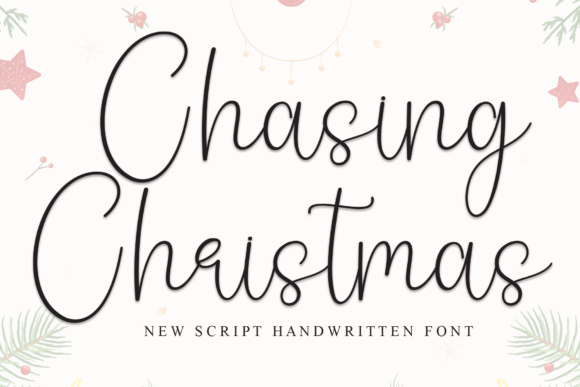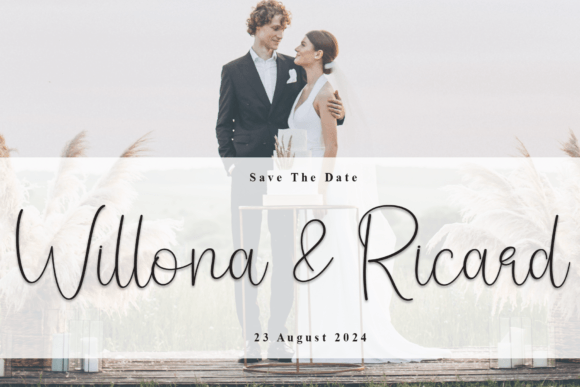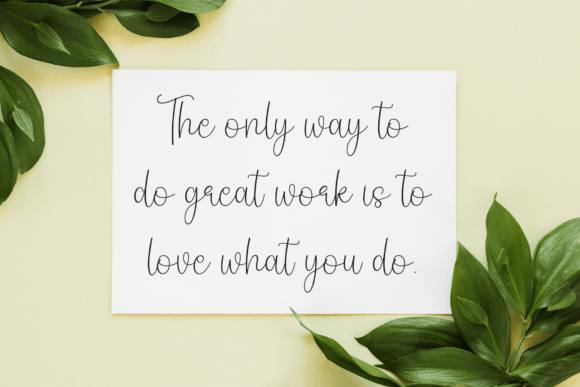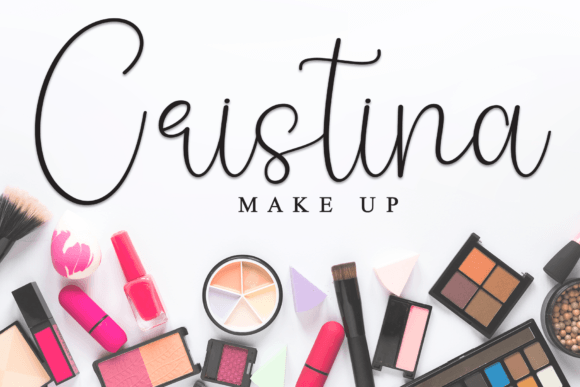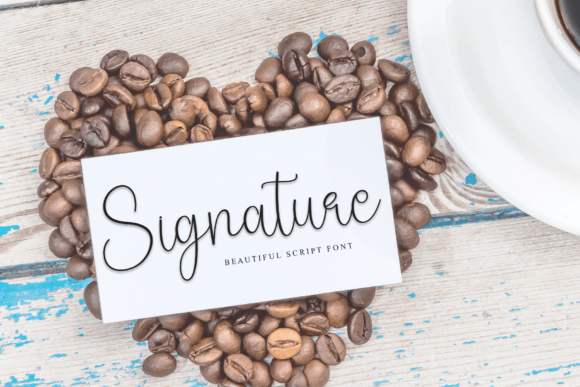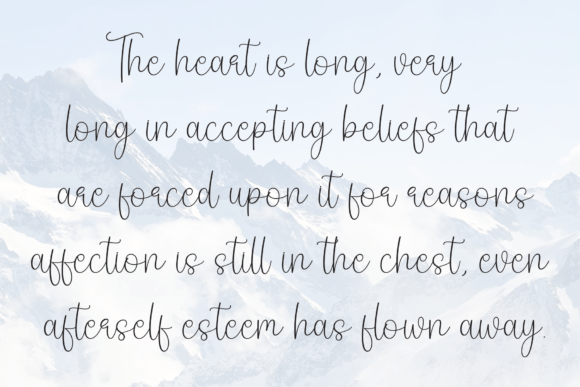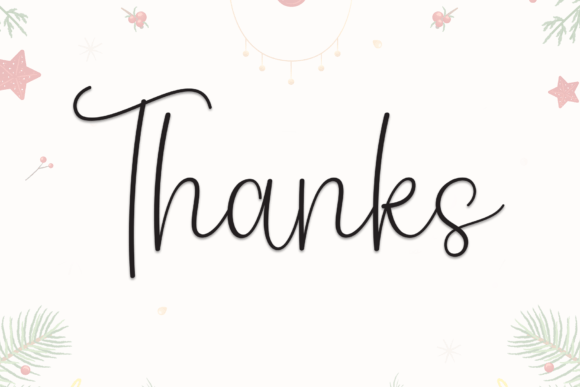
Deck the Halls with Typography: Discover the Magic of Chasing Christmas Font
As a designer, there’s no feeling quite like the rush of inspiration that comes when crafting the perfect holiday design. The twinkling lights, the cozy atmosphere, and the joyous spirit of the season all converge to create a moment of pure creative bliss. It’s in these moments that we yearn for a font that captures the essence of the season – a font that’s as warm and inviting as a crackling fire on a cold winter’s night.
Enter the Chasing Christmas Font, a delightful, handwritten display font that’s sure to bring a smile to your face and a touch of whimsy to your designs. This charming font is perfect for adding a playful and festive flair to your wedding invitations, personalized cards, or any other design project that needs a dash of holiday magic. With its unique, heartwarming style, the Chasing Christmas Font is a valuable addition to any designer’s toolkit.
Key Features of “Chasing Christmas Font”
- Unique Characteristics: Distinctive, hand-drawn style with intricate details and ornaments
Designer Review: Chasing Christmas Font
Overall, I think Chasing Christmas Font is a unique and eye-catching font, perfect for capturing the festive spirit during the holiday season. ✨ The playful, handwritten feel of the font is reminiscent of holiday cards and decorations, making it a great choice for projects that need a touch of whimsy and cheer.
- ✨ The font’s cursive feel is well-executed, with smooth lines and flowing connections between letters.
- ✨ The font’s personality shines through in its imperfections, making it feel more human and less robotic.
- ✨ The font is highly customizable, with a wide range of weights and styles available to suit different design needs.
- ⚠️ The font may not be suitable for formal or professional projects, as its playful feel may come across as too casual or immature.
- ⚠️ Some users may find the font’s imperfections to be distracting or difficult to read, particularly in smaller font sizes.
Overall, I think Chasing Christmas Font is a great choice for designers who want to add a touch of holiday magic to their projects. Just be sure to use it wisely and in contexts where its playful feel will be well-received.
Getting the Most Out of the Chasing Christmas Font
To get the most out of the Chasing Christmas font, use it in designs that evoke a festive and playful atmosphere, such as:
- Christmas card templates
- Holiday party invitations
- Seasonal social media graphics
Remember to pair the font with complementary colors and designs to create a cohesive and visually appealing look.